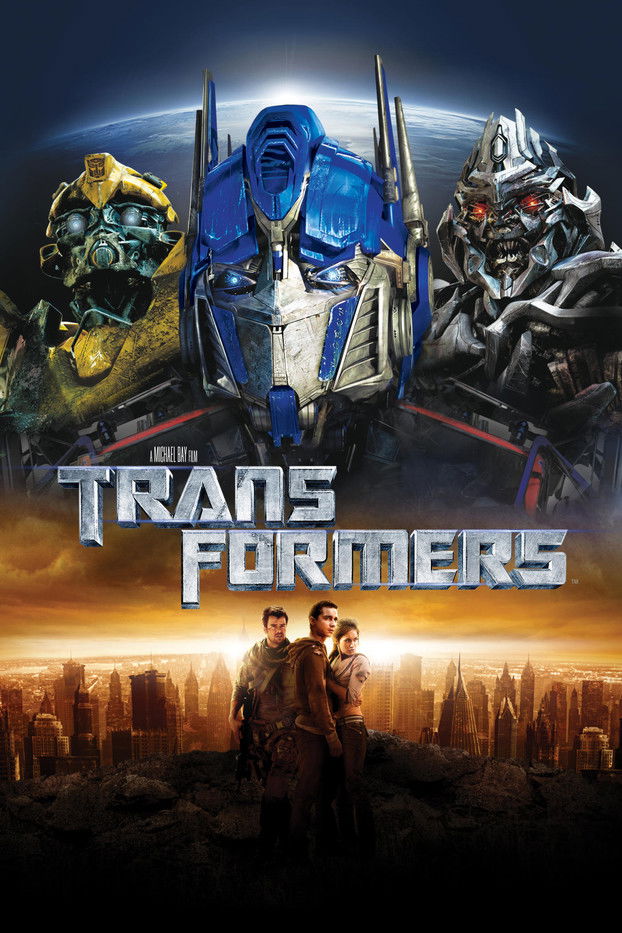
Transformers Font Generator
About the Transformers font
Transformers uses an angular, mechanical display. Wallpoet mirrors its cut, robotic edges.
What font is used in the Transformers logo?+
The original Transformers logo uses custom lettering. This generator recreates the look with Wallpoet — a free, open-license font you can style and download.